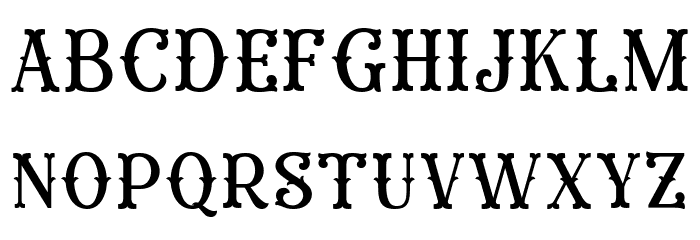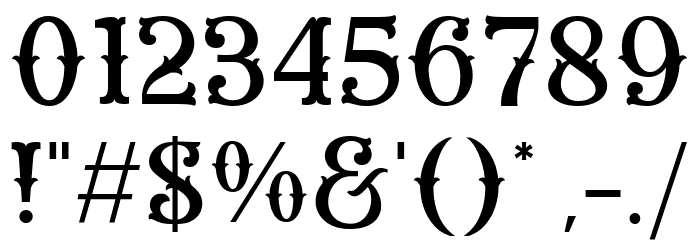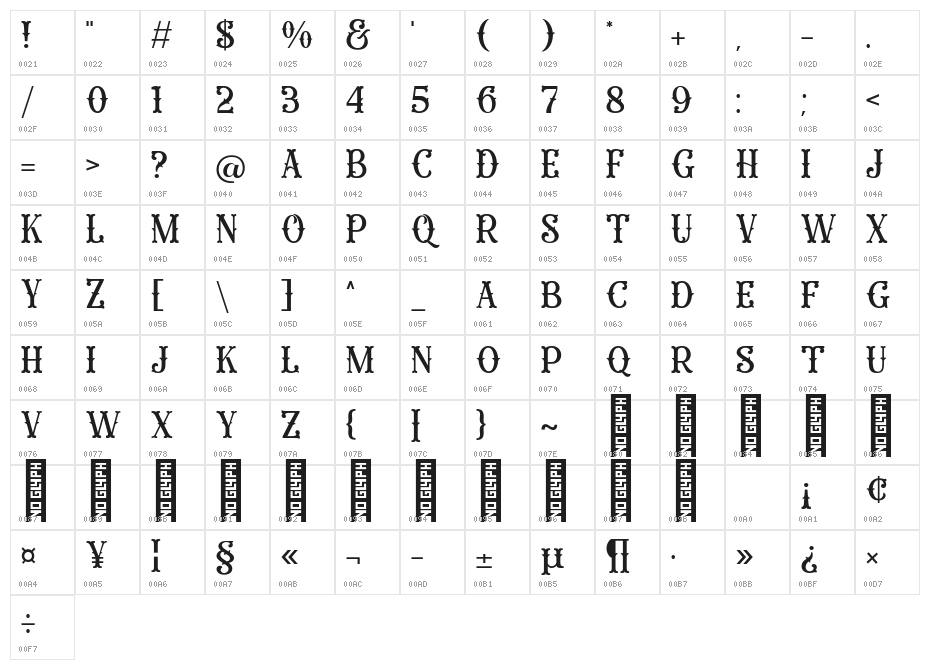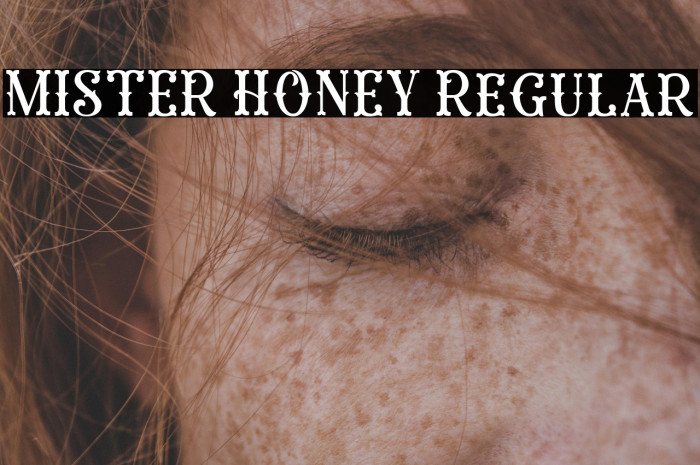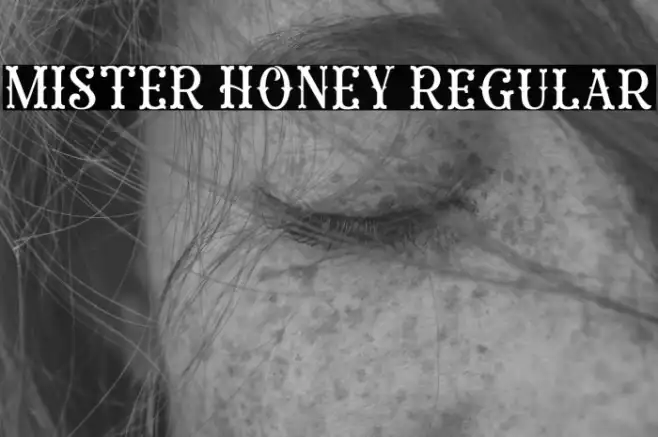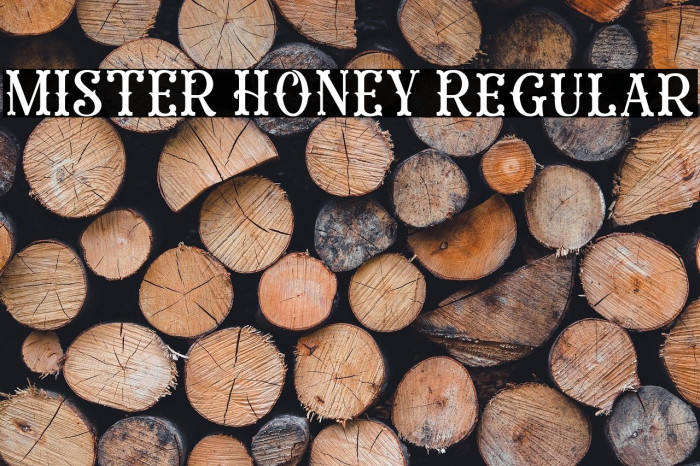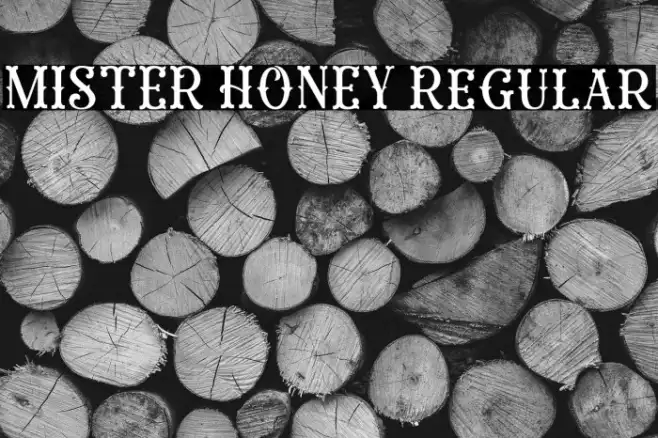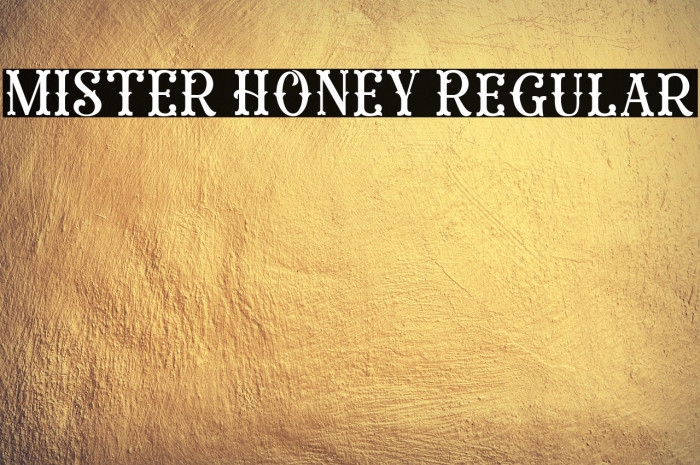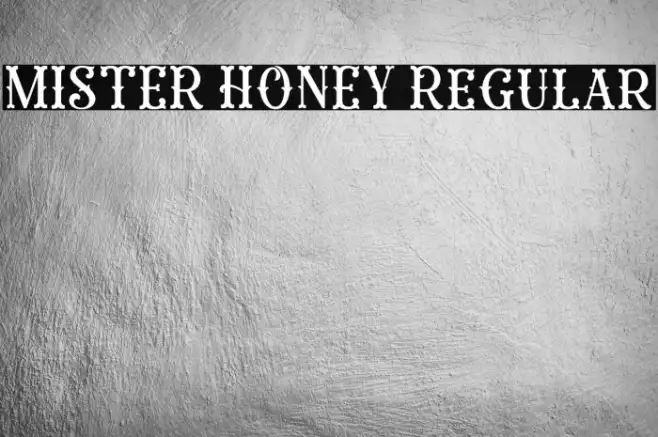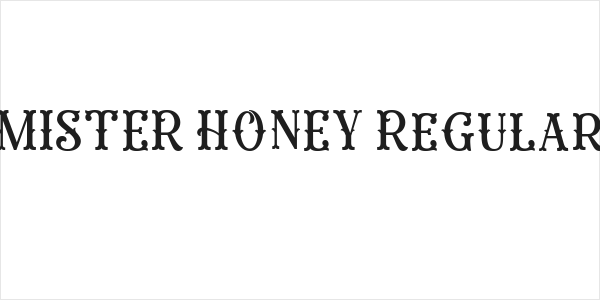
MISTER HONEY Regular Font
This font features a bold and decorative style with distinct, ornate serifs that give it a vintage and playful appearance. The characters are well-defined with a consistent stroke width, creating a harmonious and balanced look. The uppercase letters are particularly striking with their intricate detailing, while the lowercase letters maintain a cohesive design. The numbers and special characters follow the same decorative theme, making them stand out. This font is ideal for projects that require a touch of elegance and whimsy, such as invitations, posters, or branding materials.
A bold, decorative font with ornate serifs and a vintage flair.
- Proposed Projects: Ideal for invitations, posters, branding, and any design needing a vintage touch.
- Overall Style: Vintage